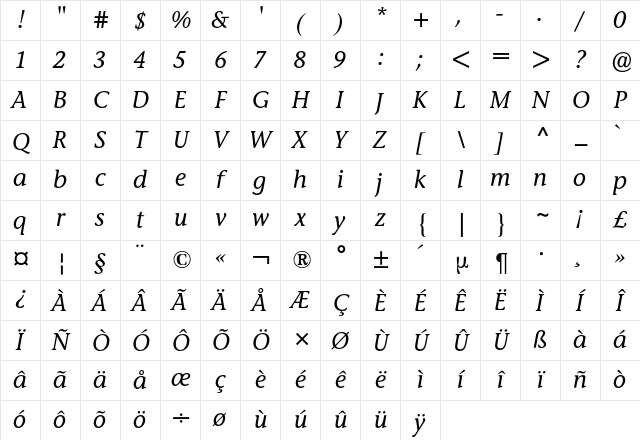
Stone Informal BQ Regular
Stone Informal BQ Regular Family
Stone Informal BQ Regular
Stone Informal BQ Regular Font Preview
Stone Informal BQ Regular Uppercase Preview
Stone Informal BQ Regular Lowercase Preview
Stone Informal BQ Regular Numeric Preview
Stone Informal BQ Regular Character Map
Complete Stone Informal BQ Regular glyph index. Displaying only characters natively supported by Stone Informal BQ Regular font.
Stone Informal BQ Regular Character Map
Design Context for Stone Informal BQ
Stone Informal BQ is a composed and adaptable typeface that performs quietly and consistently across a wide range of design contexts.